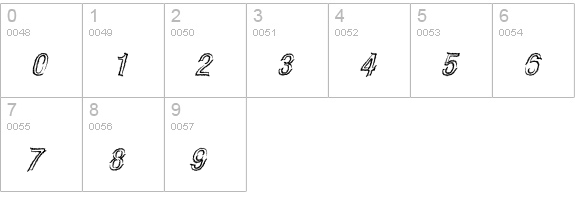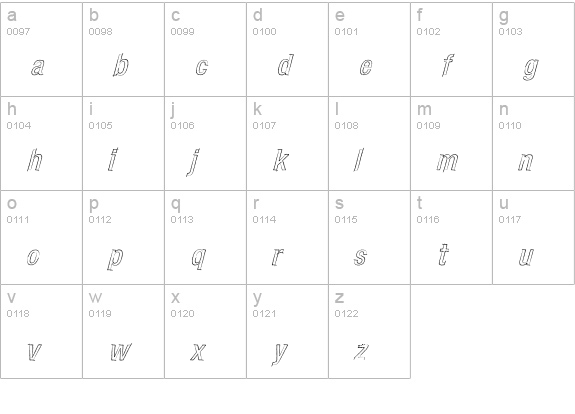
CARBONCILLO PALO Italic Font Details
CARBONCILLO PALO Italic is a distinctive, italic variant in the CARBONCILLO typeface family \xE2\x80\x94 well suited to design and typography projects.
Introducing Carboncillo Palo Italic font - a versatile and elegant typeface that exudes a sense of sophistication and modernity. With its sleek lines and distinctive italic style, this font is perfect for adding a touch of refinement to any design project. What sets Carboncillo Palo Italic font apart is its unique combination of classic elegance and contemporary flair. Whether you're looking to create eye-catching logos, stylish branding materials, or striking editorial layouts, this font is sure to make a statement. And the best part? Carboncillo Palo Italic font is available for free download at FontsMarket.com. So, whether you're a seasoned designer or just starting out, you can easily access this beautiful font and elevate your projects to new heights. Don't miss out on this opportunity to enhance your designs with the timeless beauty of Carboncillo Palo Italic font.